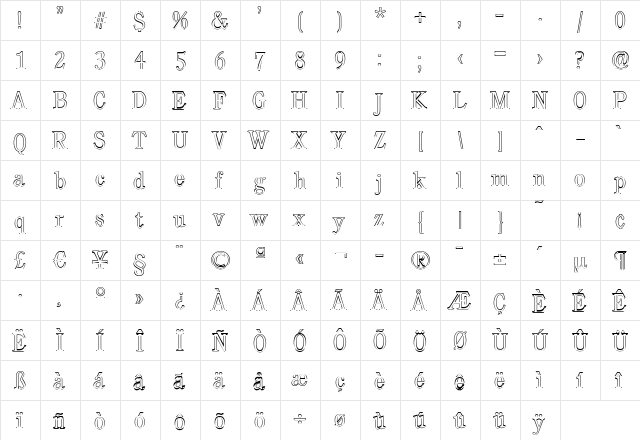
DanielBeckerOutline-ExtraLight Regular Font Preview
DanielBeckerOutline-ExtraLight Regular
DanielBeckerOutline-ExtraLight Regular Font Details
Design Context for DanielBeckerOutline-ExtraLight Typeface
DanielBeckerOutline-ExtraLight brings ornamental detail and strong personality to headlines and identities, where visual impact matters more than quiet functionality. Its slender proportions lend an understated elegance to any composition.
Font Pairing: Pair with a clean neutral sans-serif for body copy to let DanielBeckerOutline-ExtraLight's character lead without overwhelming the composition.
Pro Tip: Treat DanielBeckerOutline-ExtraLight as the centrepiece of your typographic hierarchy. One strong heading set in a decorative face can carry an entire layout.